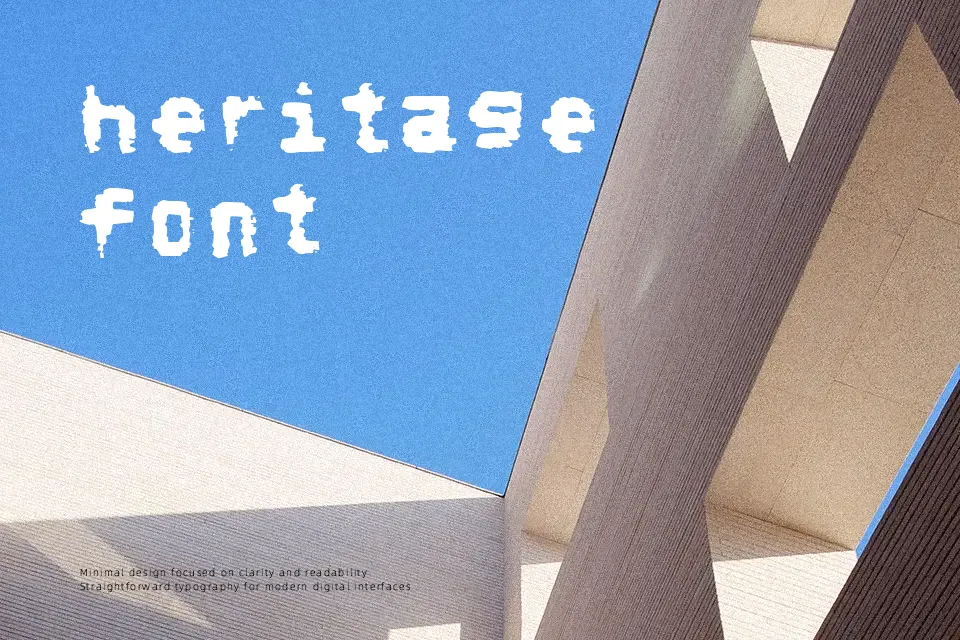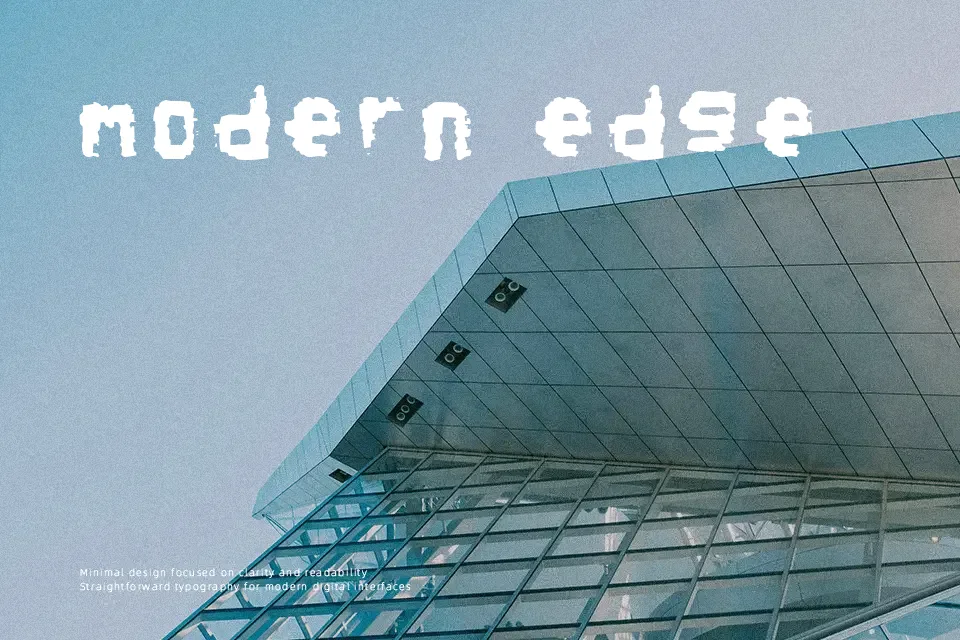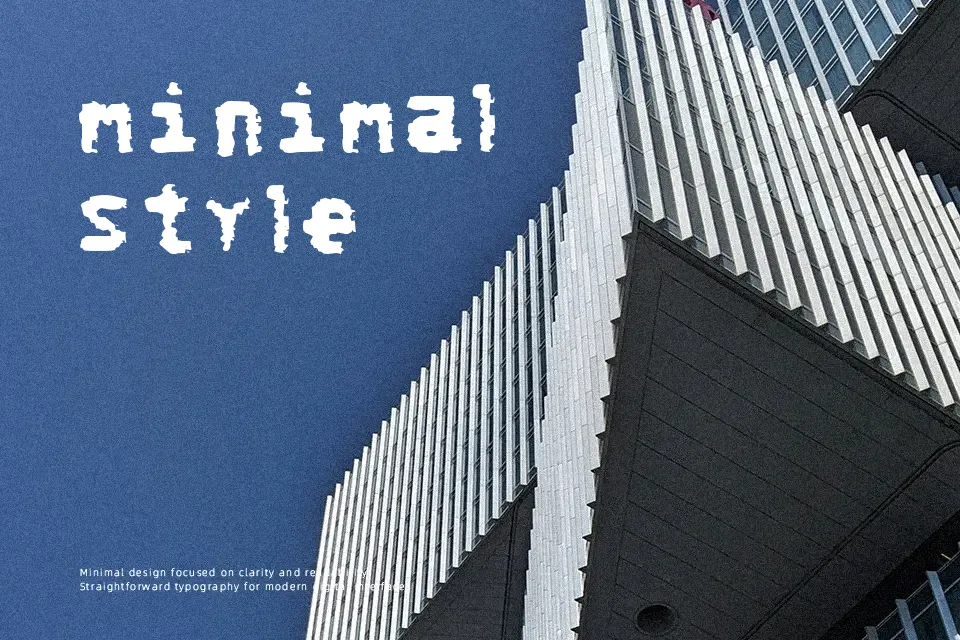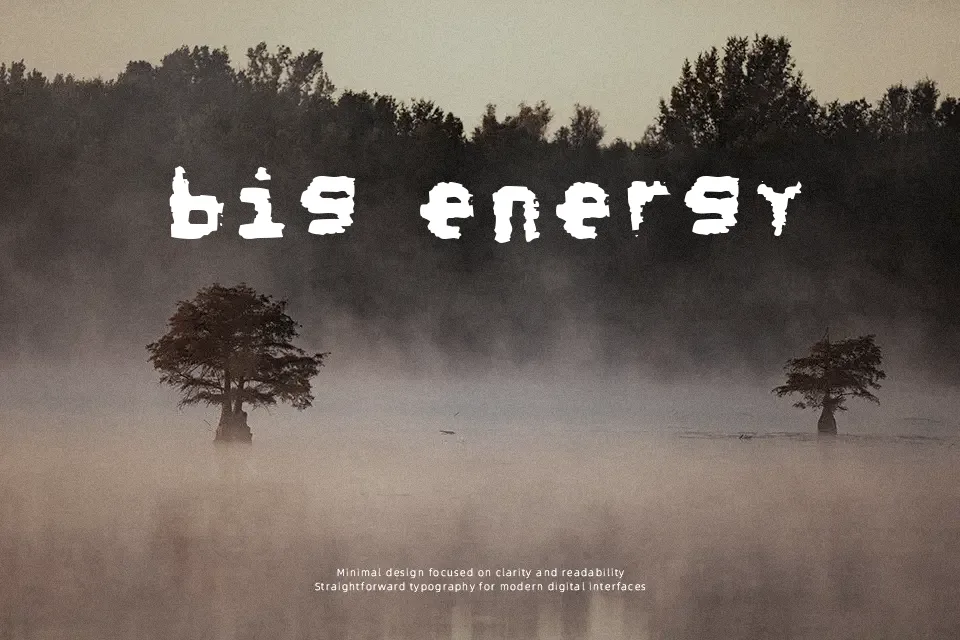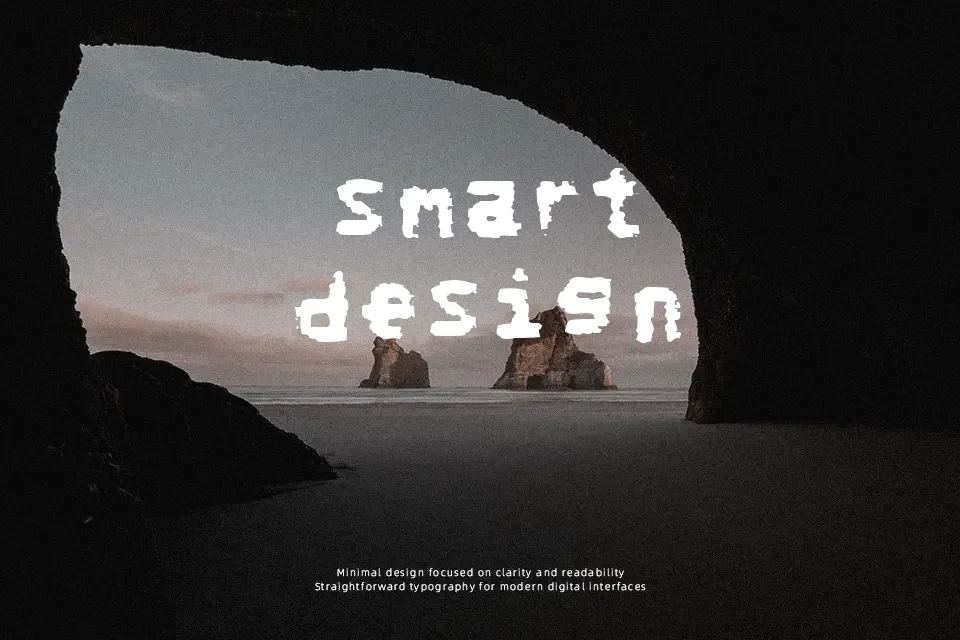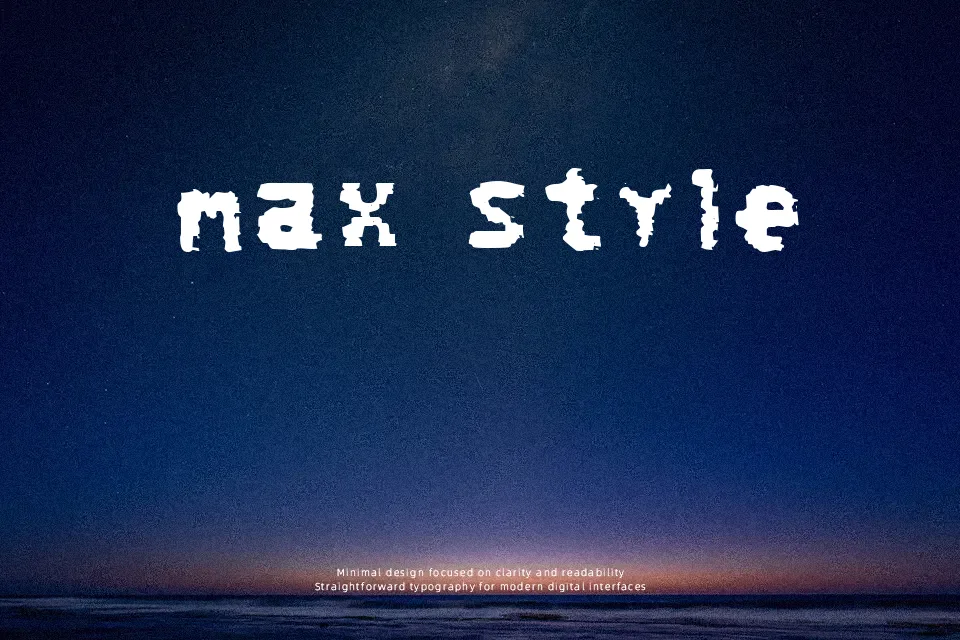
No Refunds Font
Designed by Christoph Mueller
No Refunds uses broken, irregular letterforms that create a worn and disruptive display texture. Its heavy shapes and damaged edges give short words a forceful presence, while the varied internal gaps make the design feel less controlled than a conventional sans serif. Spacing works best when the type is set large enough for each fractured detail to remain visible. The font is most effective for posters, music artwork, labels, and expressive graphic titles. In practical use, the rough construction helps headlines stand apart, but it becomes harder to read in small sizes or extended text.
Best For: underground music posters, distressed apparel graphics, event flyer headlines, bold product labels
Not Ideal For: long paragraph text, small interface labels, corporate reports, technical manuals
Perfect for headline, music, and packaging, with a dark and decorative style.